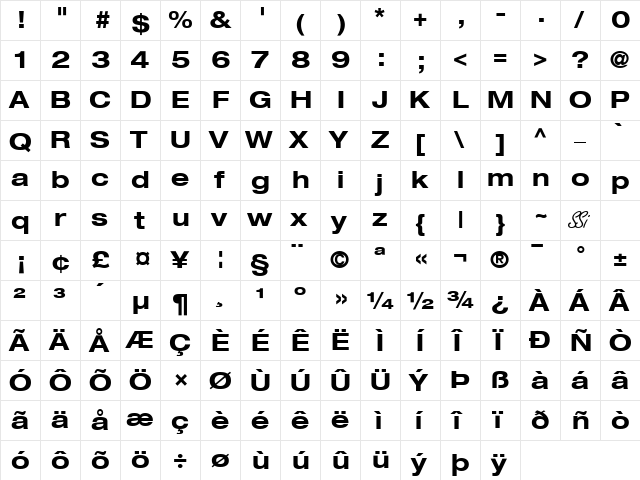
Context Reprise Expanded SSi Bold Expanded
Design Context for Context Reprise Expanded SSi Typeface
Context Reprise Expanded SSi takes a measured approach to typography — its balanced proportions and neutral character make it a reliable workhorse for both digital and print work. The heavy weight commands attention and anchors typographic hierarchies.